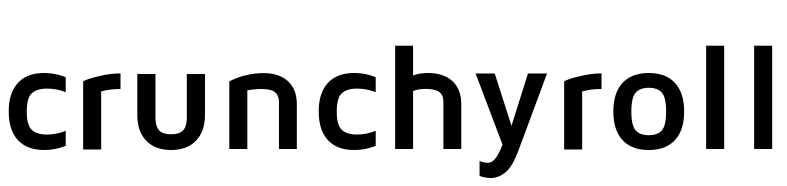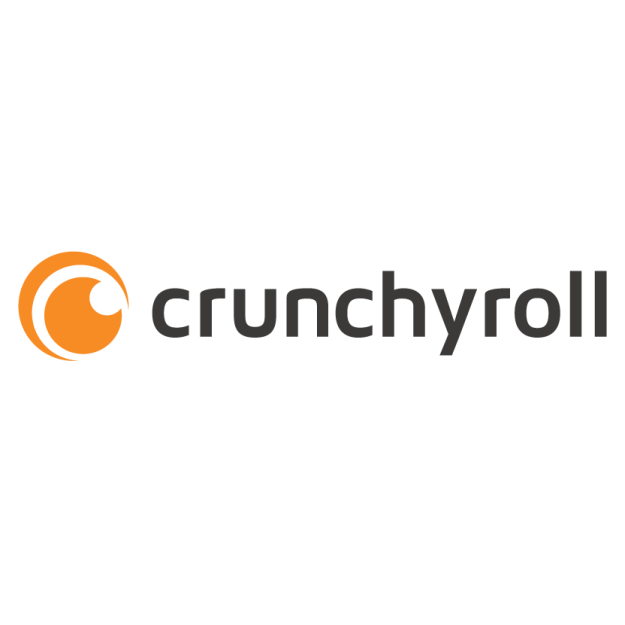
Crunchyroll Logo Font
The Crunchyroll logo likely features the Maven Bold font. This font was designed by Joe Prince and is a four-weight sans-serif with distinctive curves and a flowing rhythm. It is available for free under the SIL Open Font License.